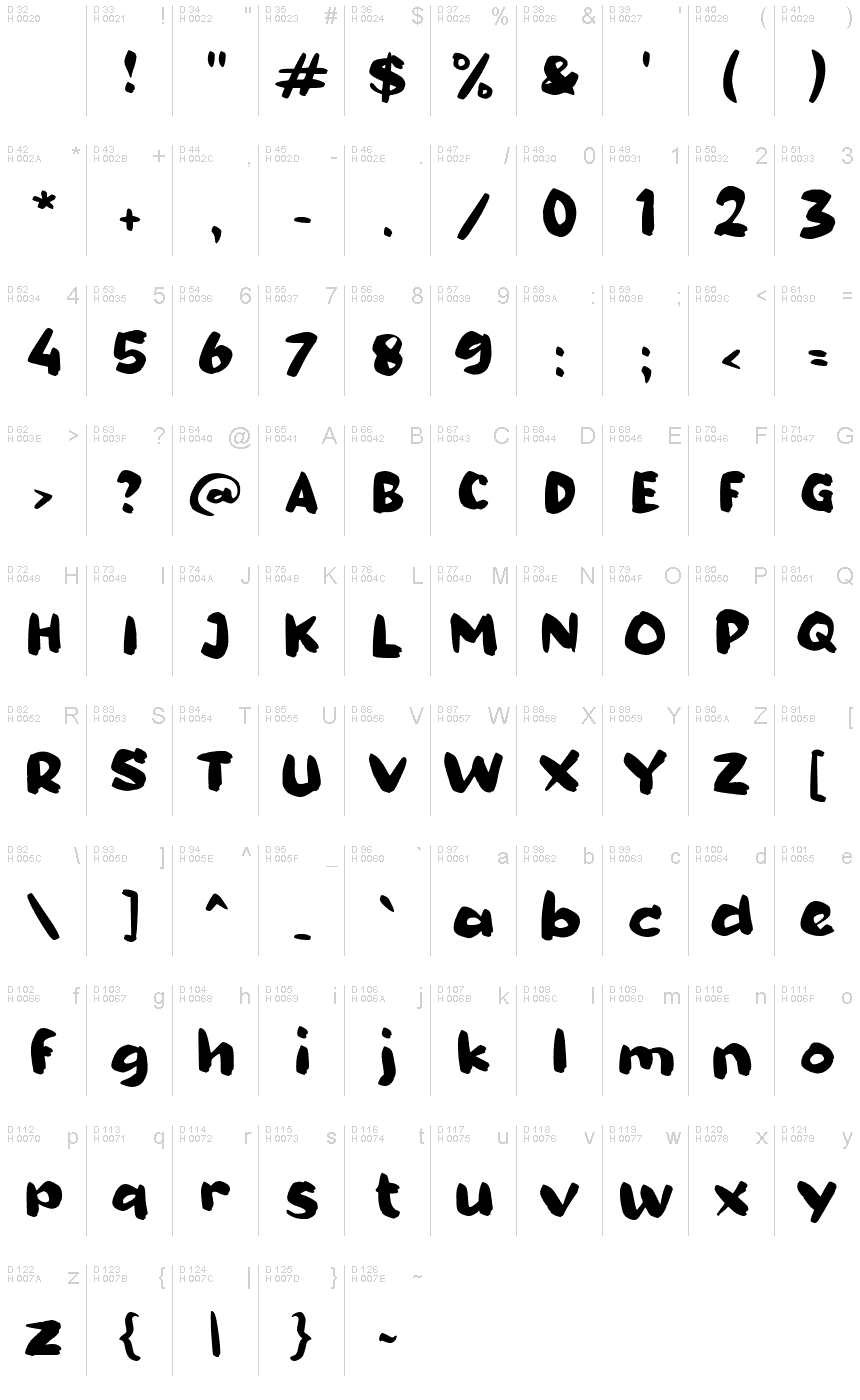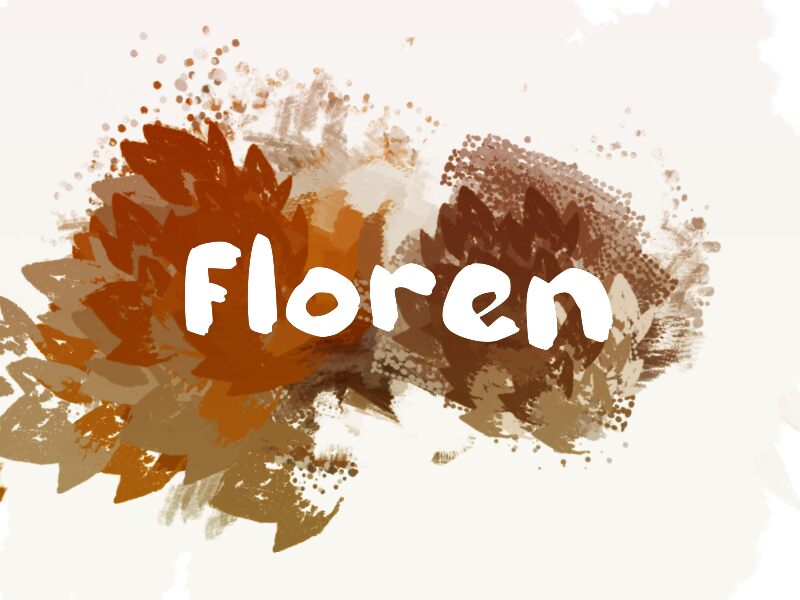
Floren
Floren, a striking brush font designed by wep, is an ideal choice for projects that require a bold and expressive touch. Its extra-bold weight adds intensity and visual impact to any design.
Whether you're creating eye-catching headlines for magazine covers, designing logos with a dynamic flair, or crafting attention-grabbing social media graphics, Floren will bring your words to life. With its handcrafted brush style, this font exudes energy and excitement, making it perfect for vibrant posters, album covers, and packaging designs.
Let Floren elevate your creations with its captivating charm.